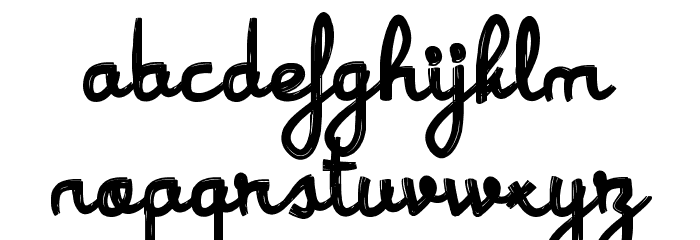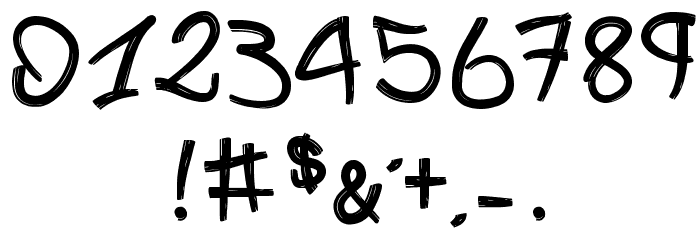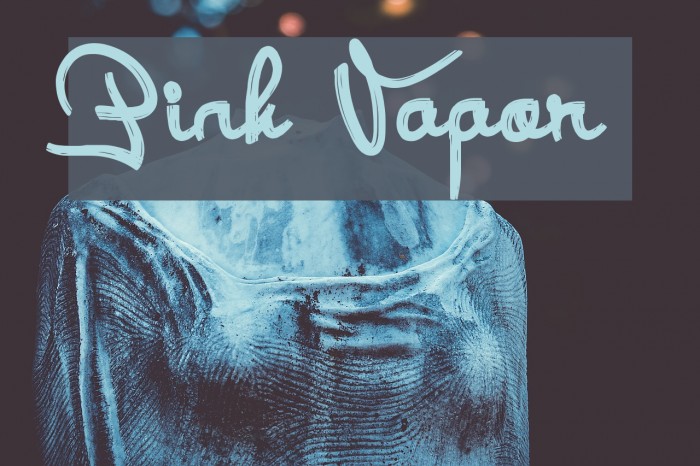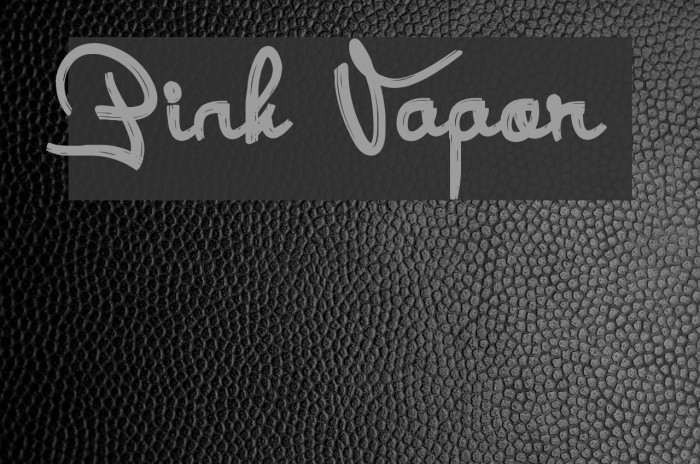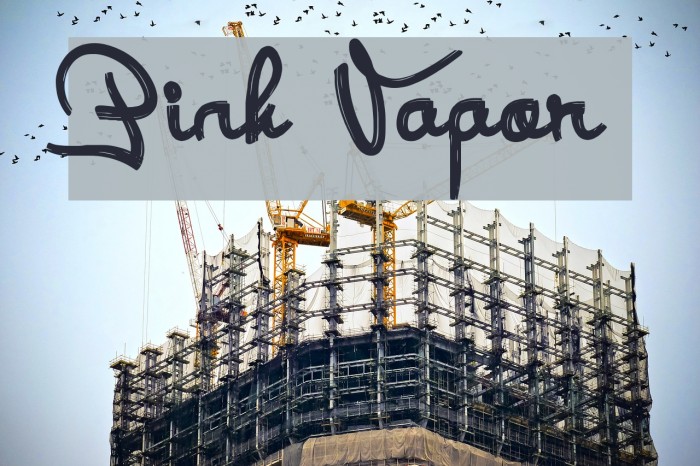
Pink Vapor Font
This font features a bold, graffiti-inspired style with a dynamic and energetic appearance. The letters are characterized by their fluid, hand-drawn quality, giving them a sense of movement and spontaneity. The uppercase letters are particularly striking, with exaggerated curves and angles that create a sense of rhythm and flow. The lowercase letters maintain this lively aesthetic, with a slightly more restrained form that ensures readability. The numerals and special characters are consistent with the overall style, adding a playful yet edgy touch. This font is perfect for projects that require a bold statement and a modern, urban feel.
A bold, graffiti-inspired font with a dynamic, hand-drawn style.
- Proposed Projects: Ideal for street art designs, urban-themed posters, music album covers, and edgy branding projects.
- Overall Style: Modern, Urban